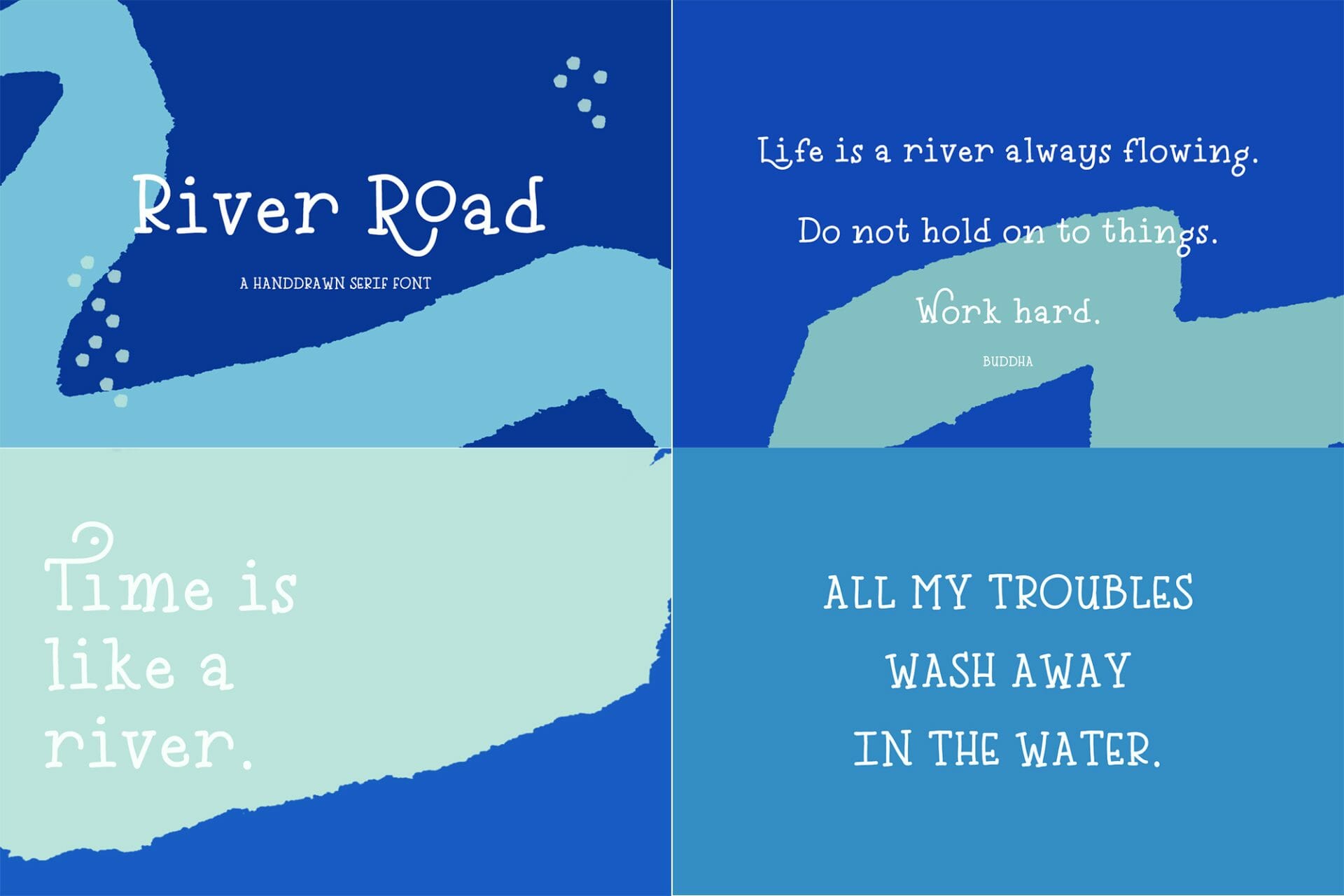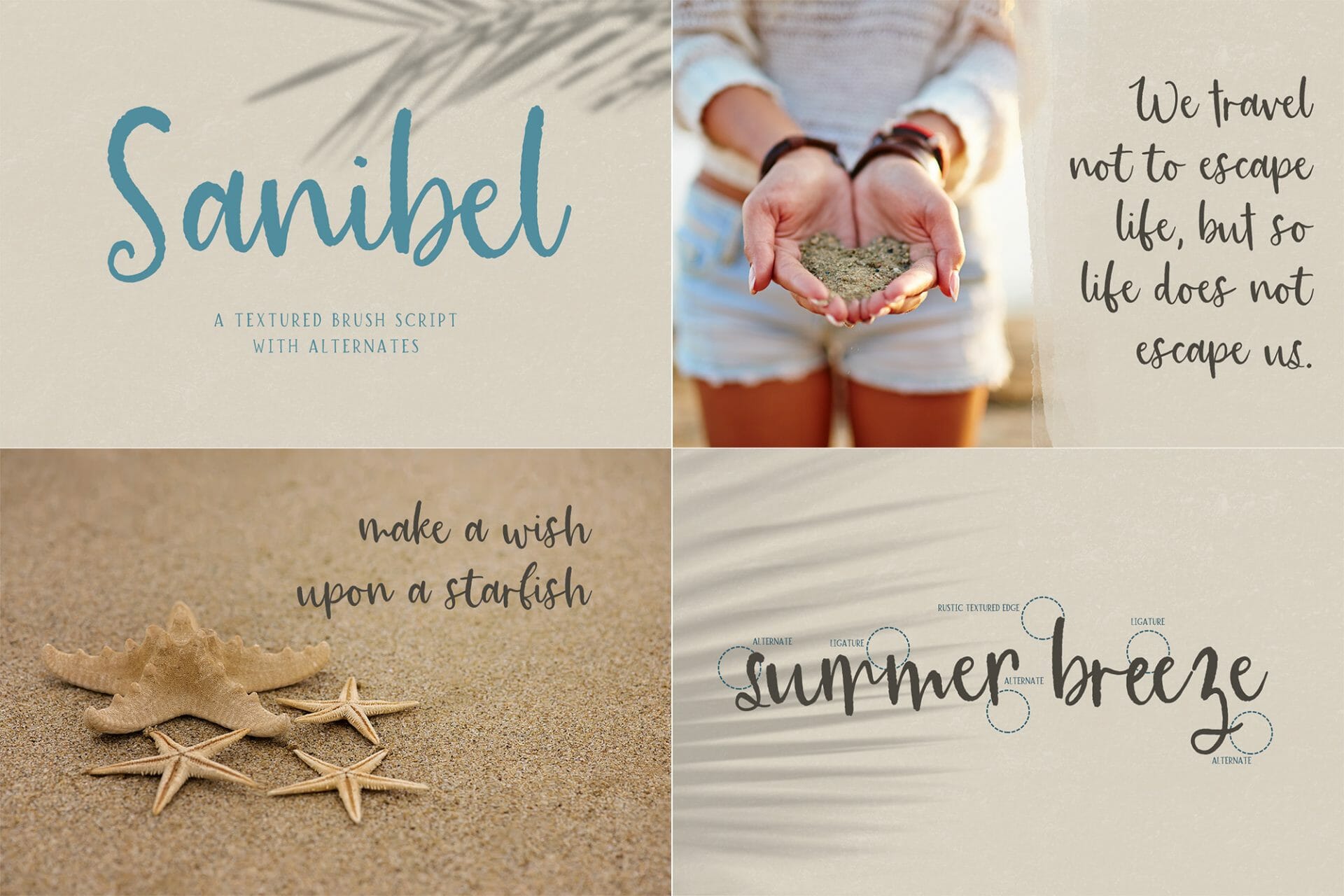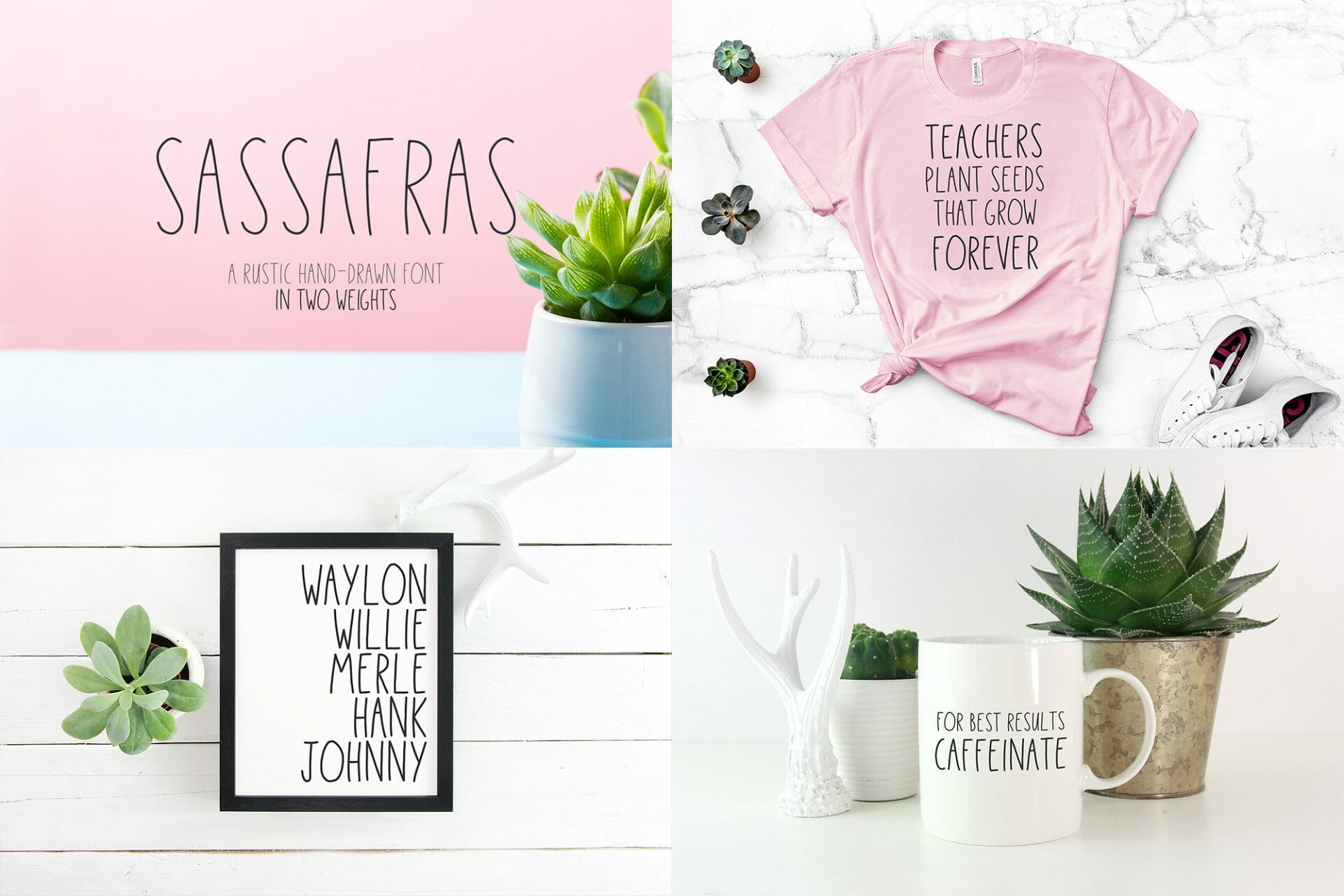
Introducing the Farmhouse Font Bundle!
This Farmhouse Font Bundle is full of shabby chic, rustic font goodness, and includes an excellent combination of rustic serif fonts, sans fonts, and beautiful cursive fonts. In this bundle, you’ll find:
– my best-selling Farmhouse Country Duo (two fonts)
– the Brioche family (four fonts)
– Sanibel Script
– River Road Typewriter Serif
– Salt & Sea Calligraphy Font
– and Sassafras Sans in two weights (two fonts)